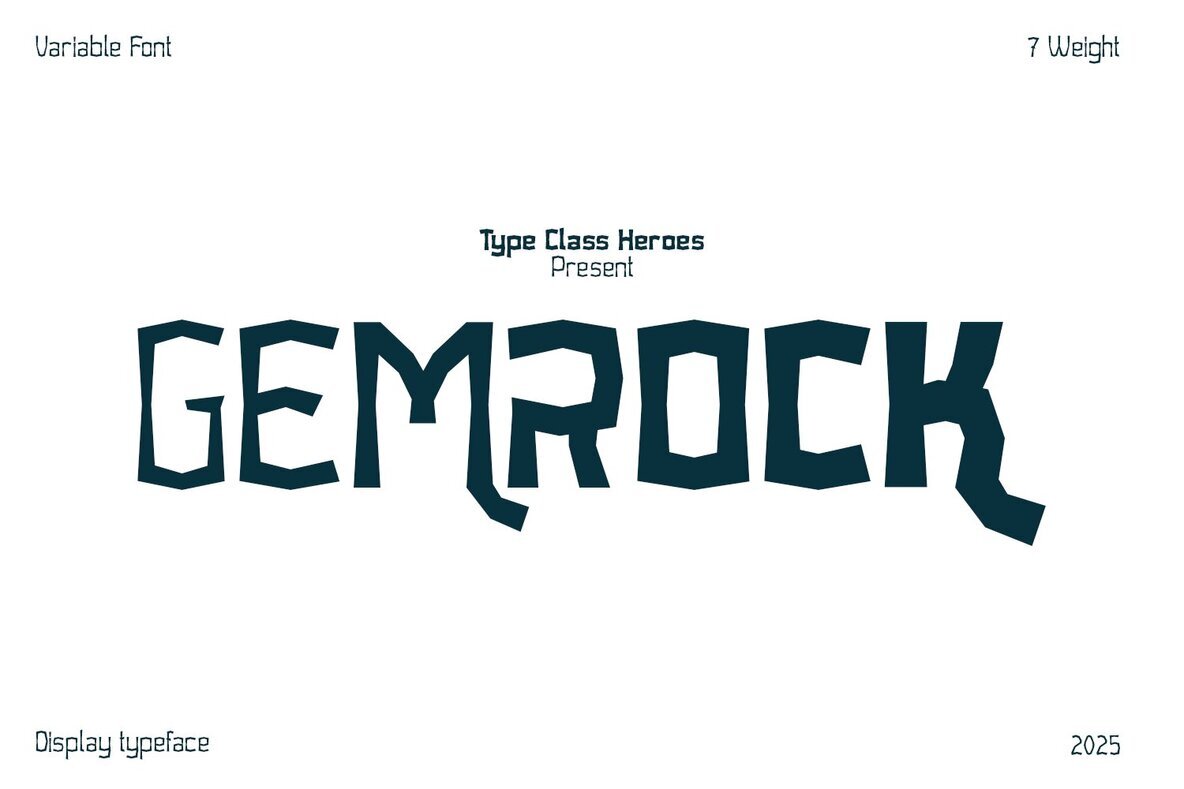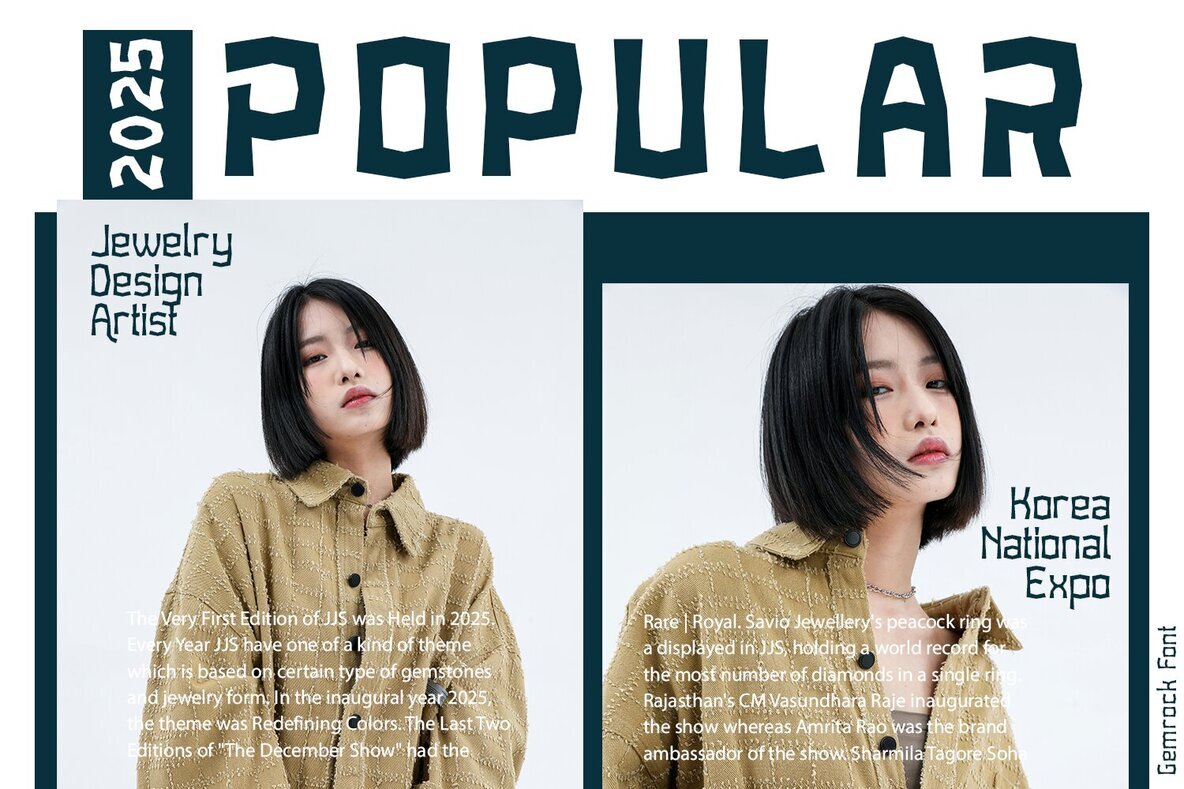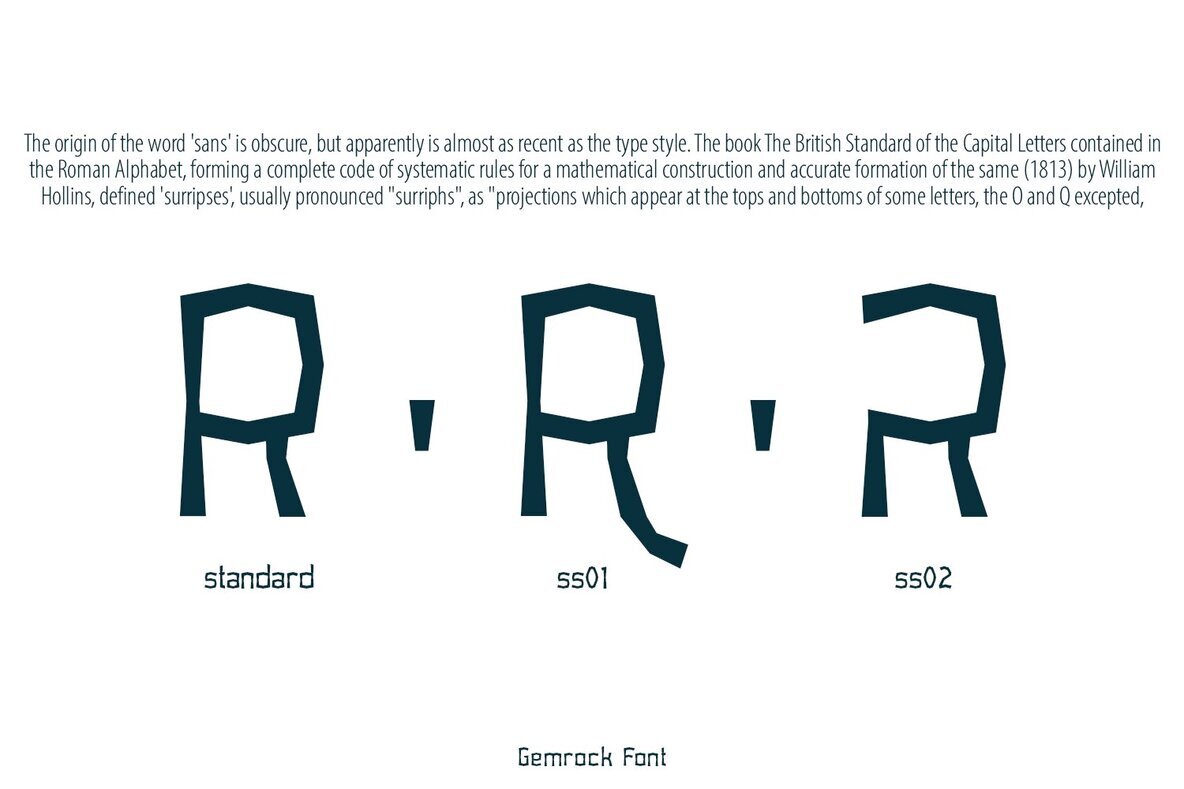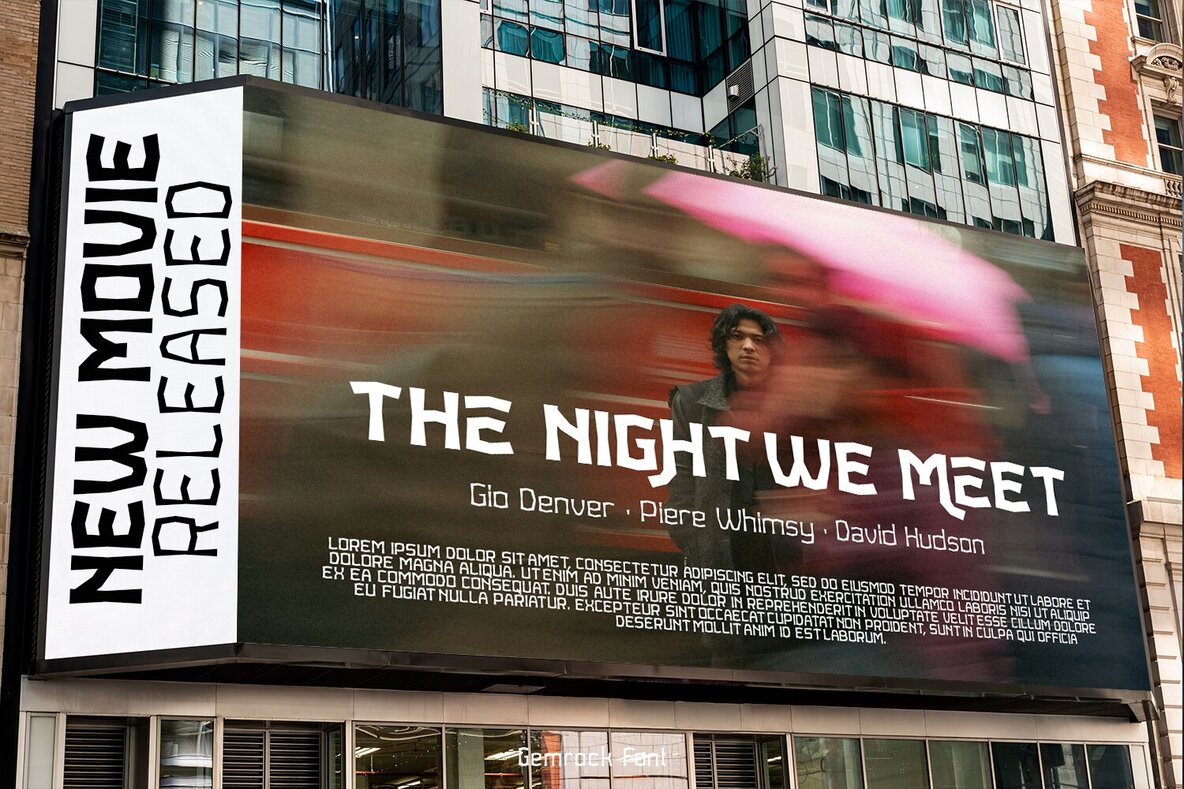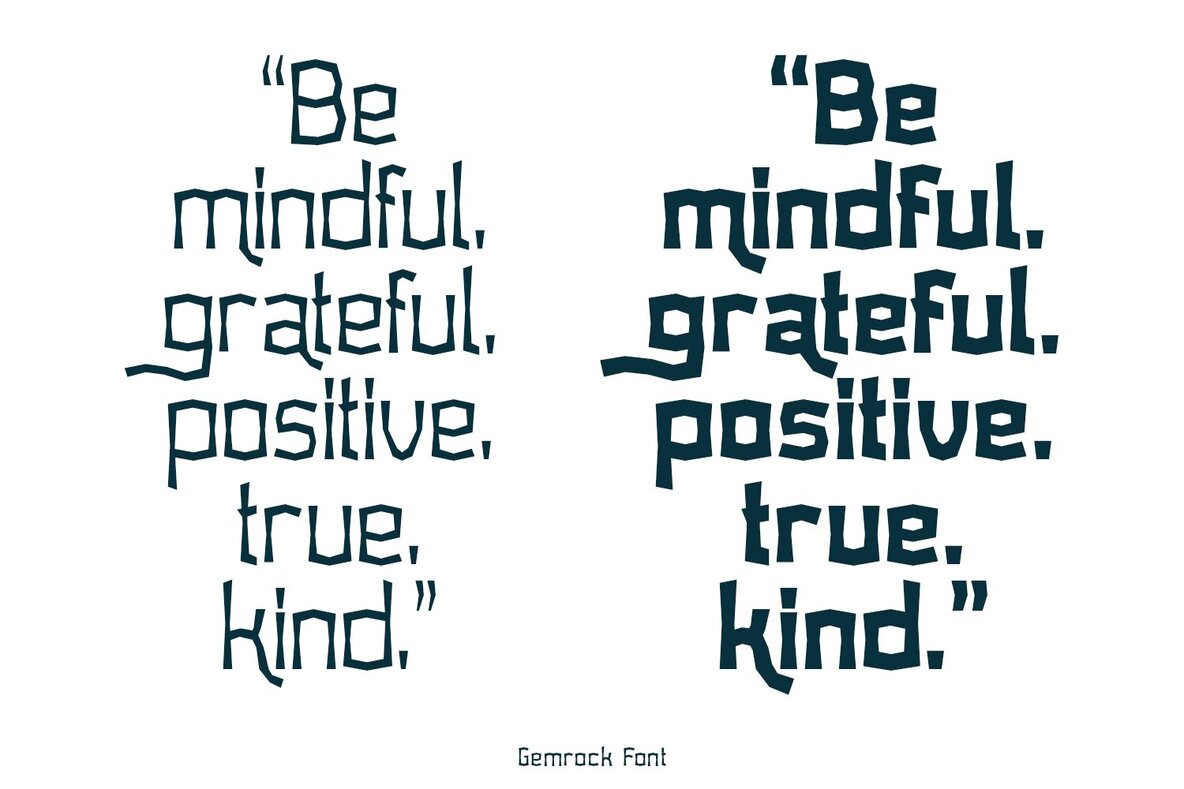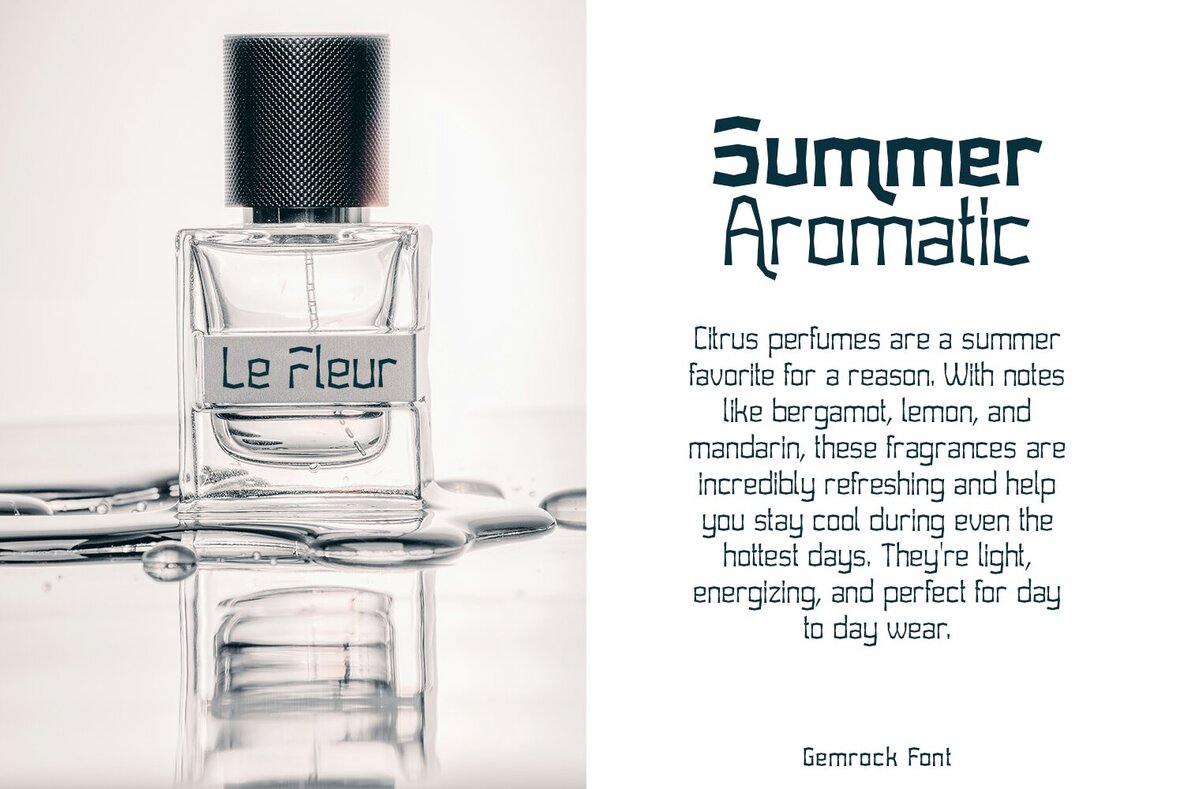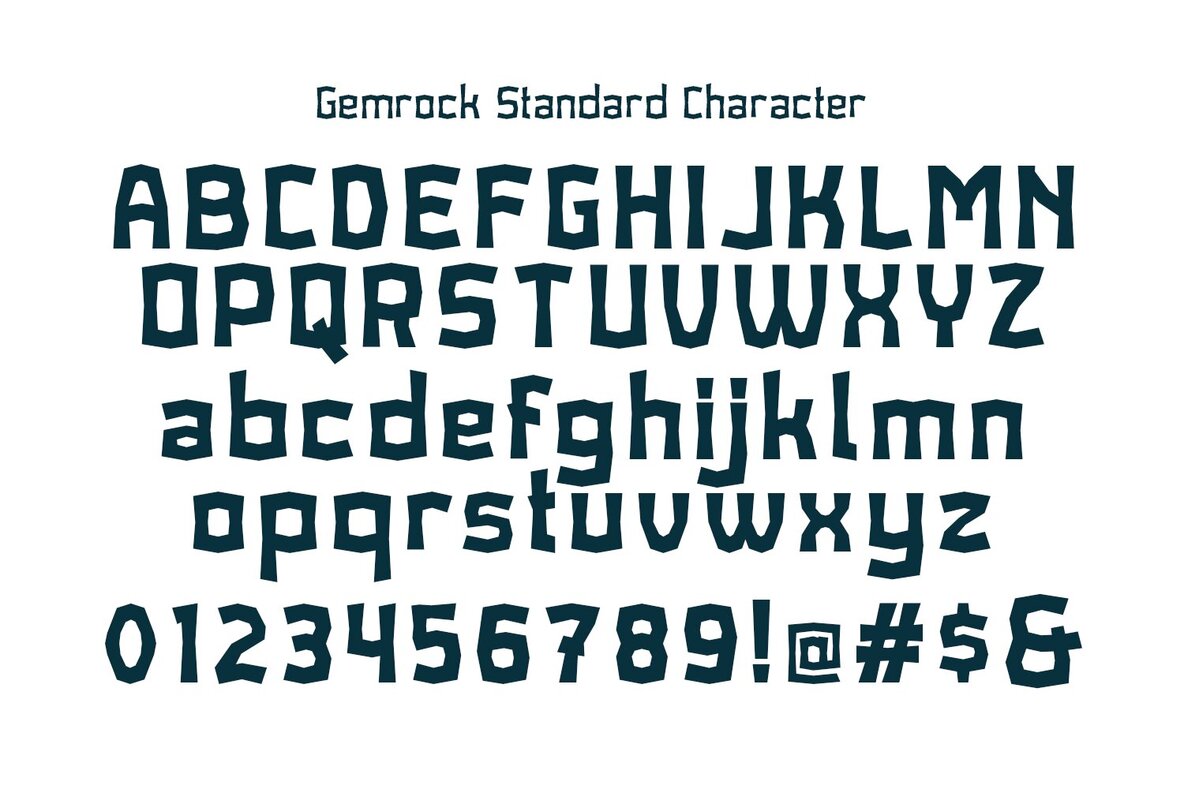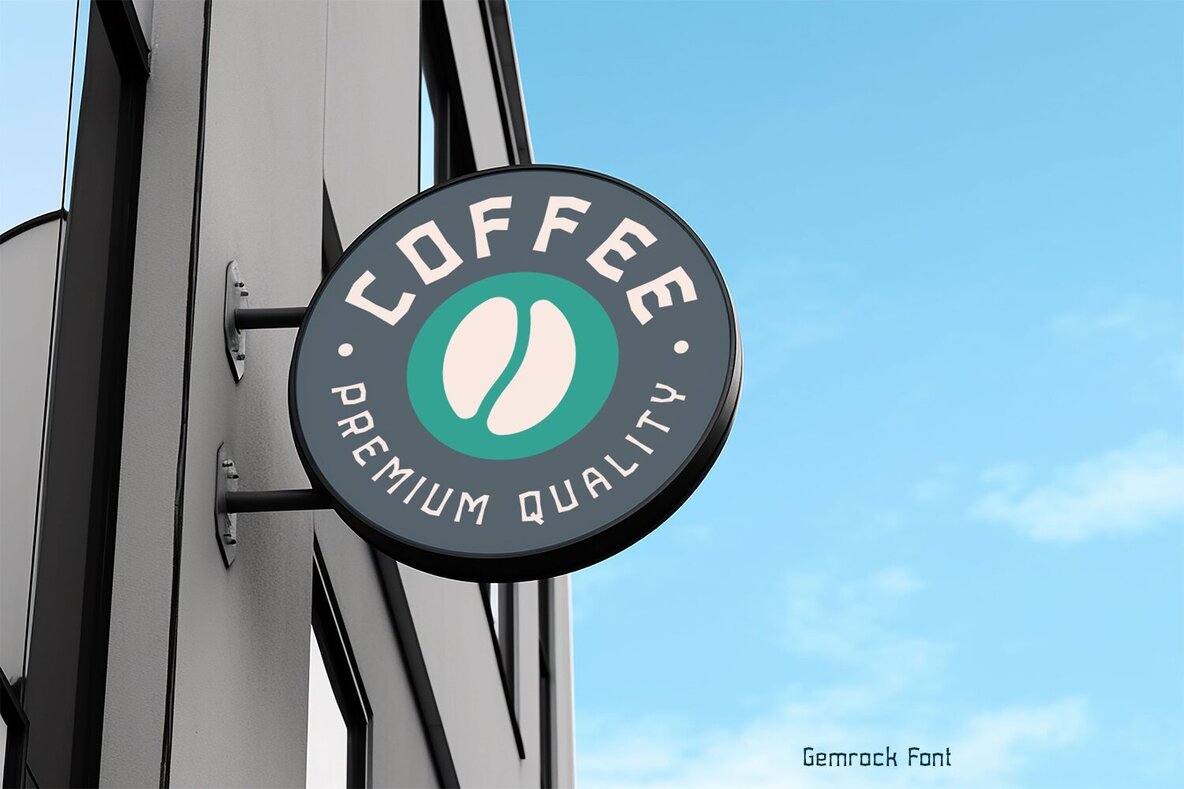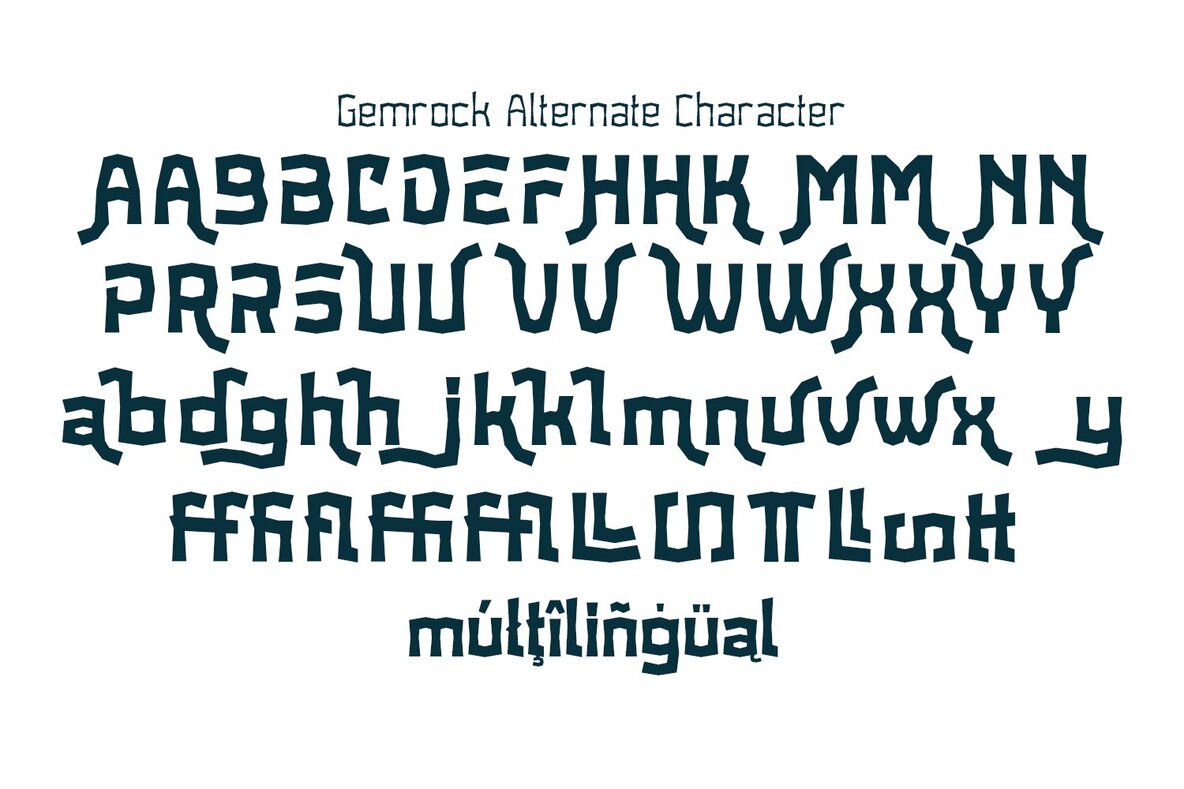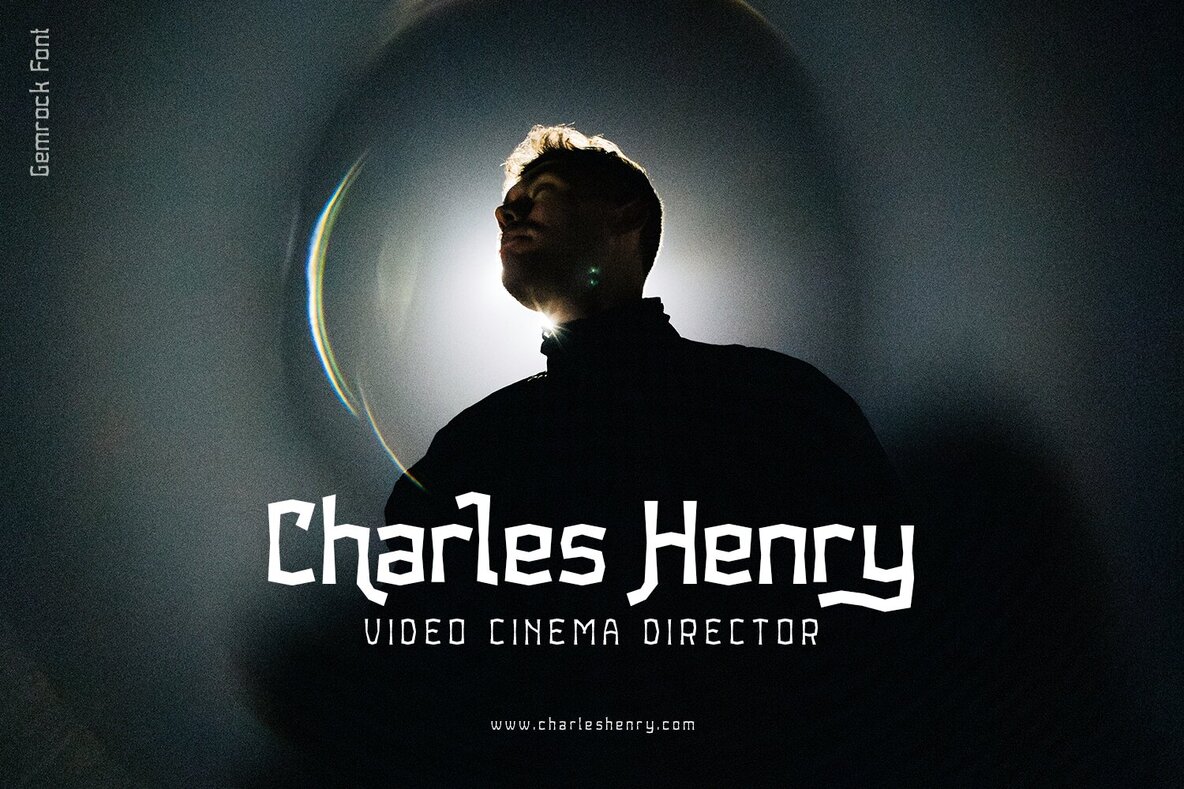
Gemrock Font
Gemrock is a versatile sans serif font characterized by its strong lines, making it ideal for high-end fashion and culturally rich environments. This font family includes a range of widths and weights, providing ample opportunity for creative exploration and combination in your designs.
Perfect for a variety of applications, Gemrock can enhance branding projects, product packaging, invitations, and more. Its bold presence and clean aesthetic make Gemrock an excellent choice for labels, posters, logos, and headlines. Embrace the flexibility of this typeface to create impactful visual statements across diverse platforms.